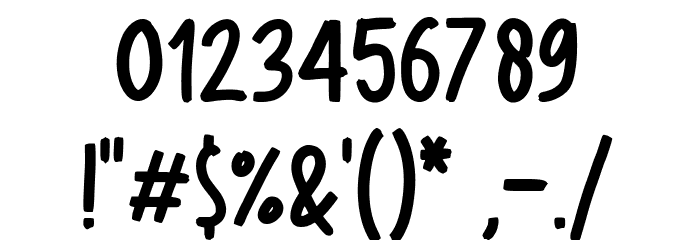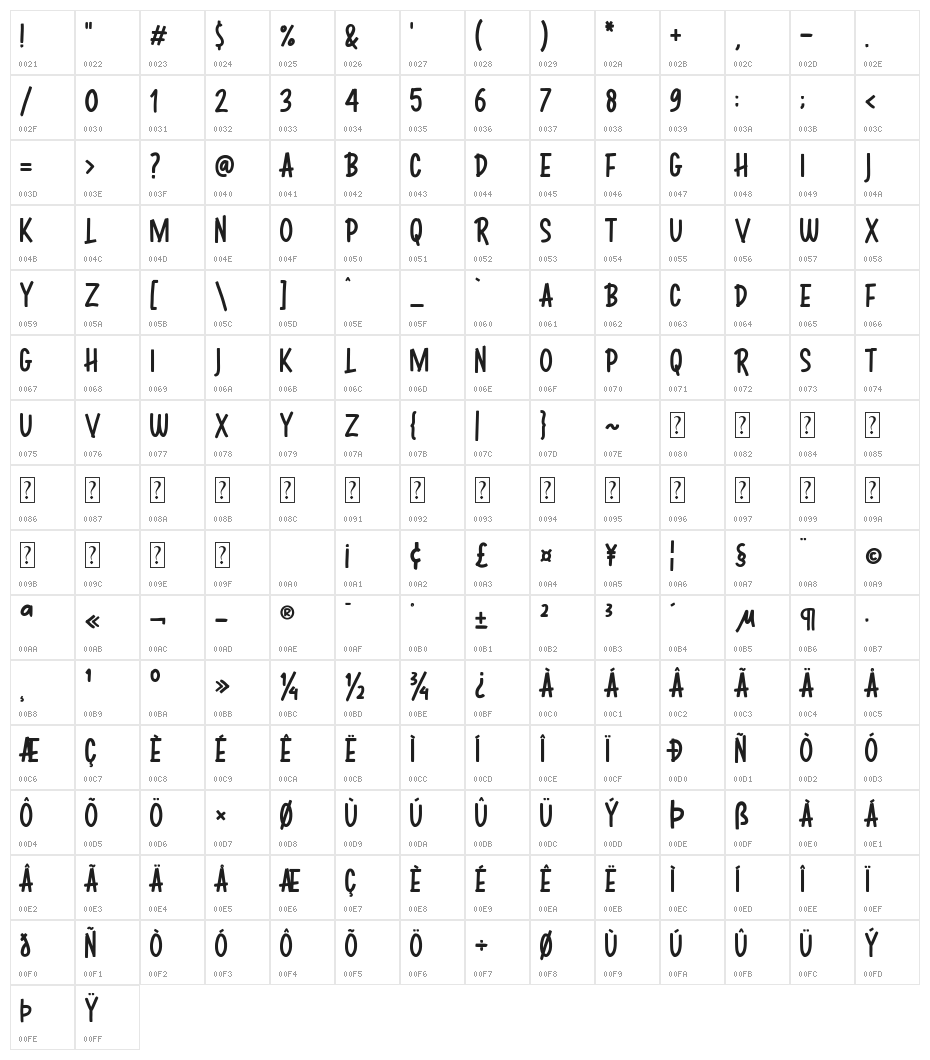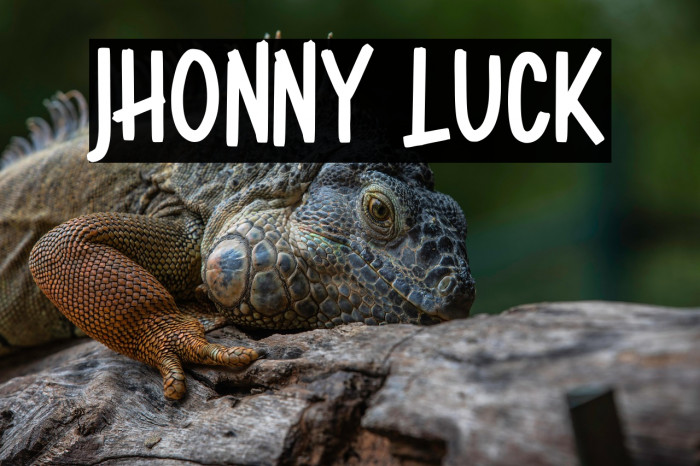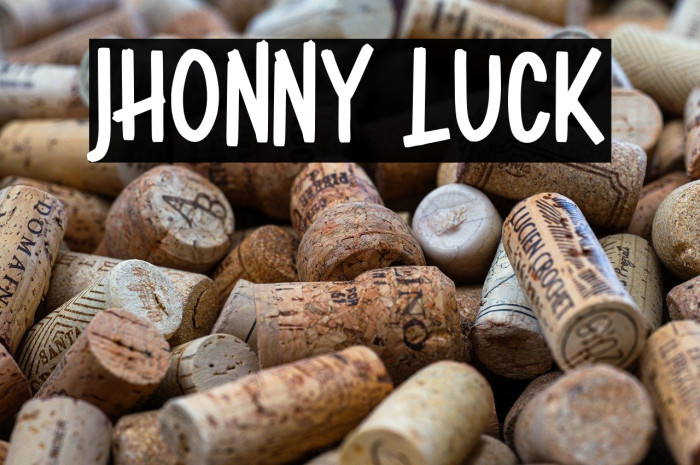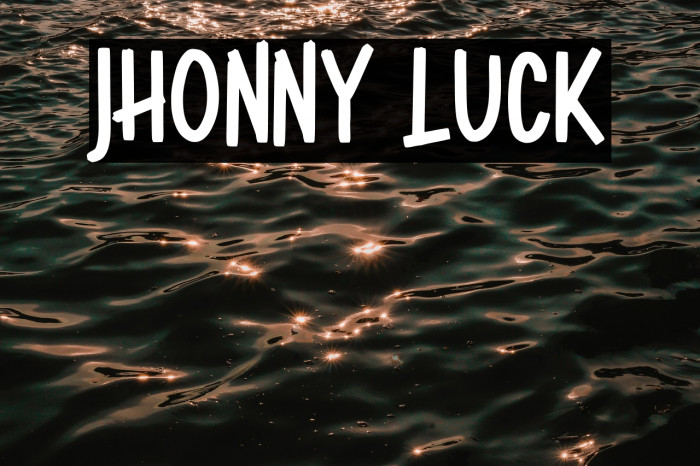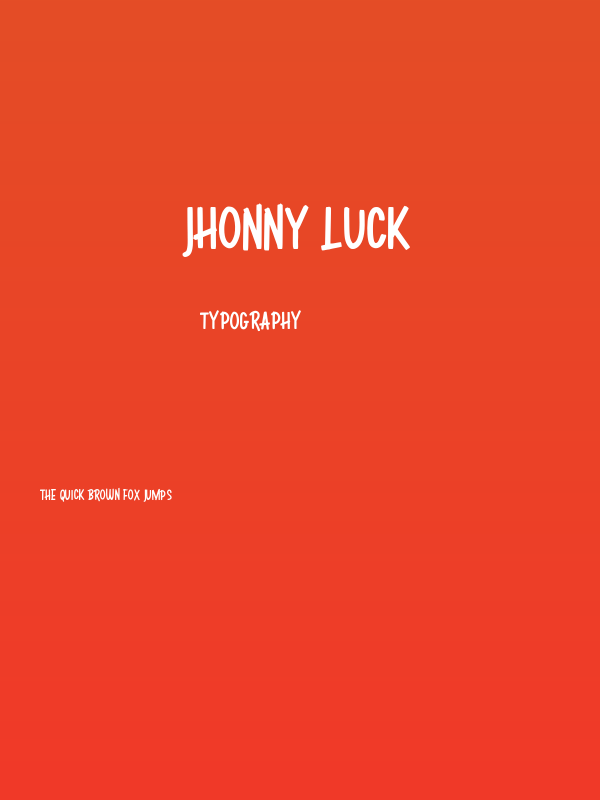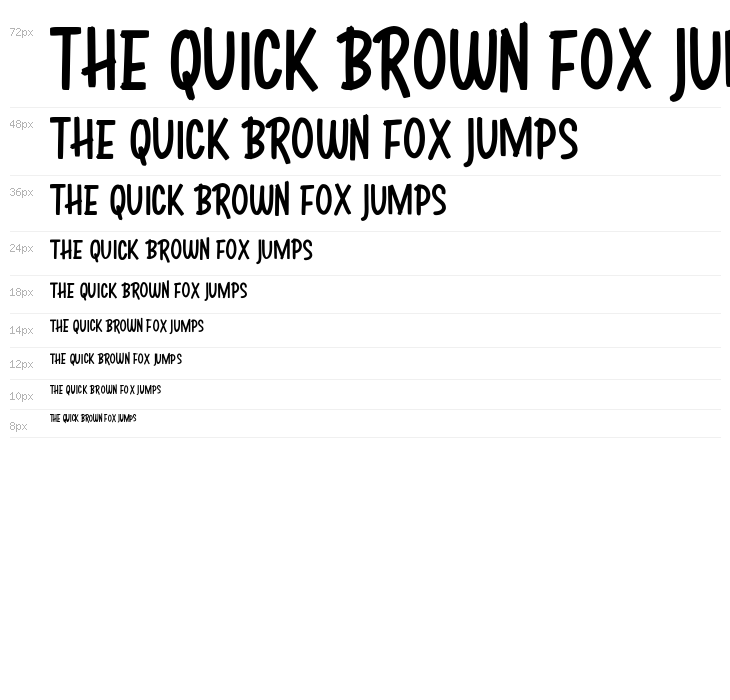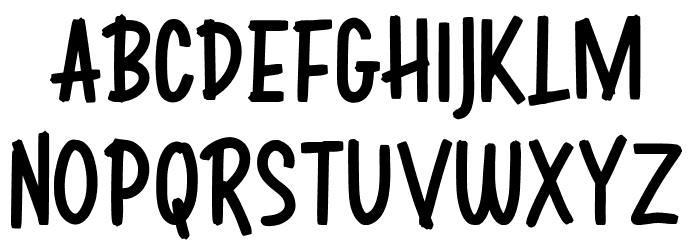
Jhonny Luck Font
Jhonny Luck Description
This font exhibits a playful and informal handwritten style, characterized by bold and slightly irregular strokes that give it a lively and dynamic appearance. The uppercase and lowercase letters maintain a consistent height, contributing to a cohesive look. The numerals and special characters are crafted with the same energetic flair, making them easily readable while retaining the font's unique personality. The overall design is approachable and friendly, making it suitable for projects that aim to convey a sense of fun and creativity.
| Proposed Projects | Ideal for children's books, greeting cards, casual branding, and creative posters. |